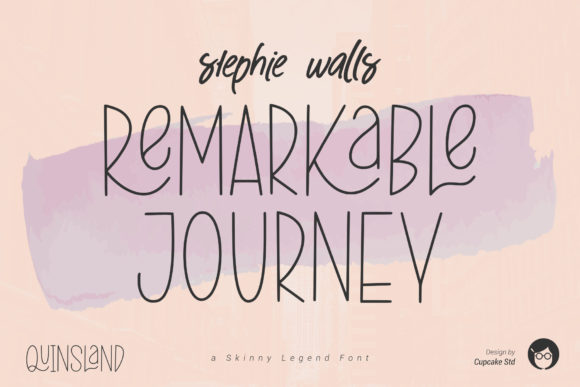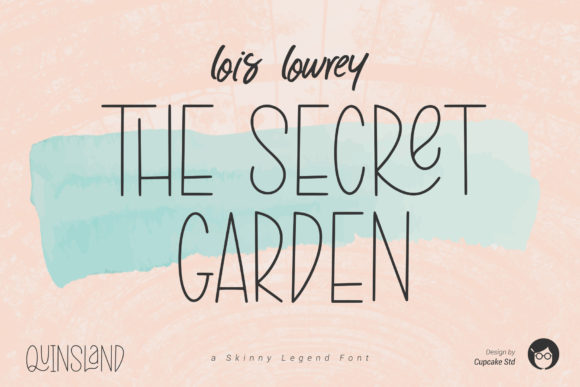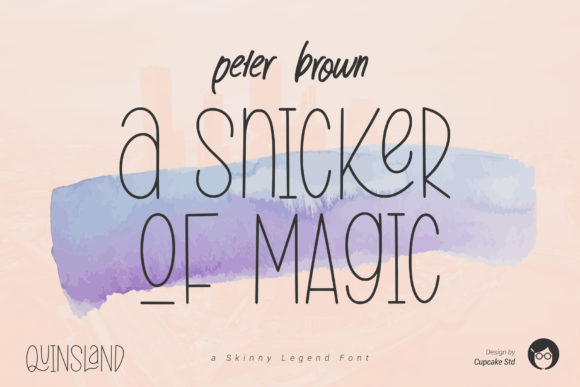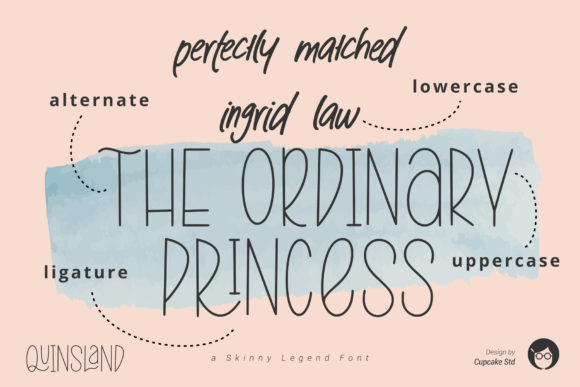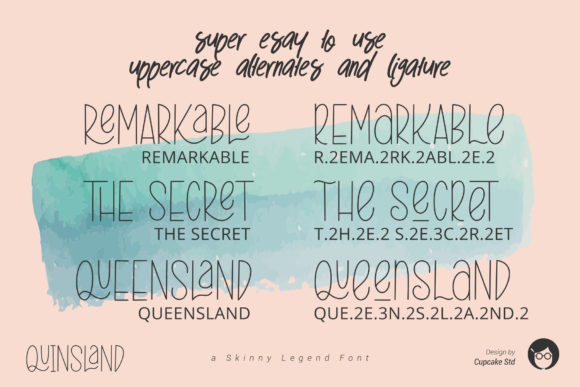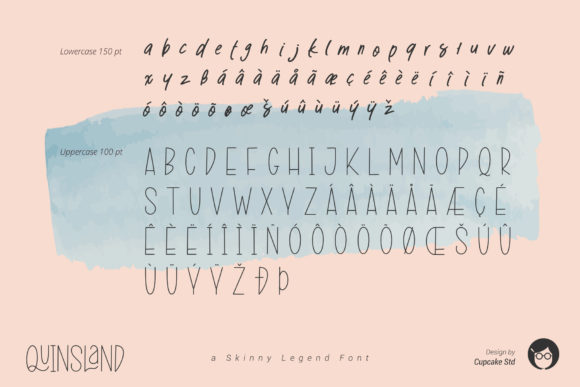
Introducing AL Quinsland 2in1 Font: The Ultimate Display Font for Designers and Crafters
Are you tired of using the same old fonts in your designs? Look no further! AL Quinsland 2in1 Font is here to take your typography to the next level. This adorable display font is carefully handcrafted to become a true favorite among designers and crafters. In this article, we’ll dive into the features and benefits of AL Quinsland 2in1 Font and explore how it can elevate your designs.
A Cute and Versatile Font
Quinsland is a cute display font that is sure to capture the attention of your audience. Its unique and playful design makes it perfect for a wide range of projects, from branding and advertising to packaging and signage. Whether you’re looking to create a bold headline or add some personality to your text, AL Quinsland 2in1 Font is the perfect choice.
One of the standout features of AL Quinsland 2in1 Font is its versatility. This font is designed to look outstanding in any context, whether it’s being used on busy backgrounds or as a standalone headline. The carefully crafted design ensures that the font remains clear and legible, even at smaller sizes.
Handcrafted with Love
AL Quinsland 2in1 Font is not just another font – it’s a labor of love. The font is carefully handcrafted by skilled designers who have poured their hearts and souls into creating a truly unique and special font. Every letter, every curve, and every detail has been meticulously crafted to ensure that the font is not only beautiful but also functional.
What Makes AL Quinsland 2in1 Font So Special?
So, what sets AL Quinsland 2in1 Font apart from other fonts on the market? Here are just a few reasons why designers and crafters are falling in love with this font:
• Cute and Playful Design: AL Quinsland 2in1 Font has a unique and playful design that’s sure to capture the attention of your audience.
• Versatile: This font is perfect for a wide range of projects, from branding and advertising to packaging and signage.
• Handcrafted: The font is carefully handcrafted by skilled designers who have poured their hearts and souls into creating a truly unique and special font.
• Legible: The font remains clear and legible, even at smaller sizes, making it perfect for use on busy backgrounds or as a standalone headline.
How to Use AL Quinsland 2in1 Font in Your Designs
AL Quinsland 2in1 Font is easy to use and can be incorporated into your designs in a variety of ways. Here are a few ideas to get you started:
• Branding and Advertising: Use AL Quinsland 2in1 Font to create bold and eye-catching headlines that capture the attention of your audience.
• Packaging and Signage: This font is perfect for use on packaging and signage, where a clear and legible font is essential.
• Digital Media: AL Quinsland 2in1 Font can be used in digital media, such as social media graphics, blog posts, and website headers.
In conclusion, AL Quinsland 2in1 Font is a must-have for designers and crafters looking to elevate their typography. With its cute and playful design, versatility, and handcrafted details, this font is sure to become a true favorite. Whether you’re looking to create bold headlines, add some personality to your text, or simply try something new, AL Quinsland 2in1 Font is the perfect choice.